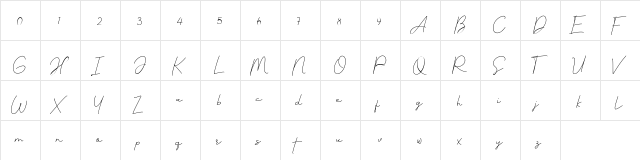
saitama Regular Font Preview
saitama Regular
saitama Regular Font Details
Design Context for saitama Typeface
saitama is a composed and adaptable typeface that performs quietly and consistently across a wide range of design contexts.